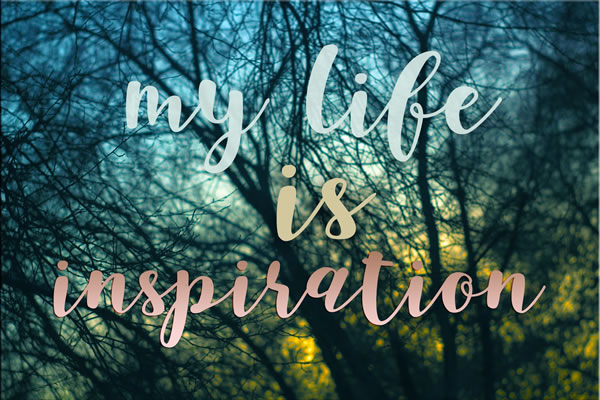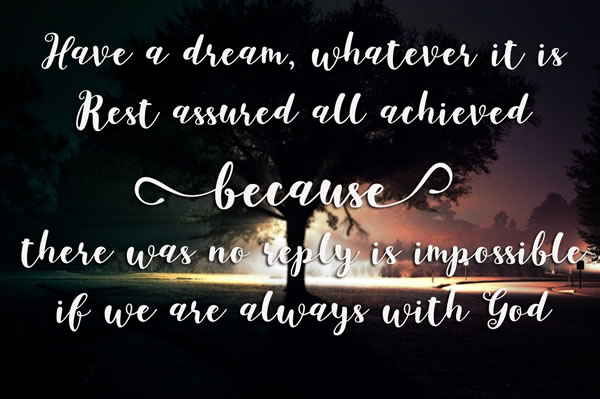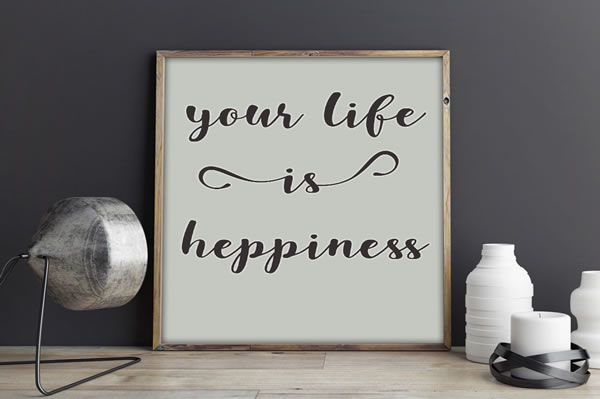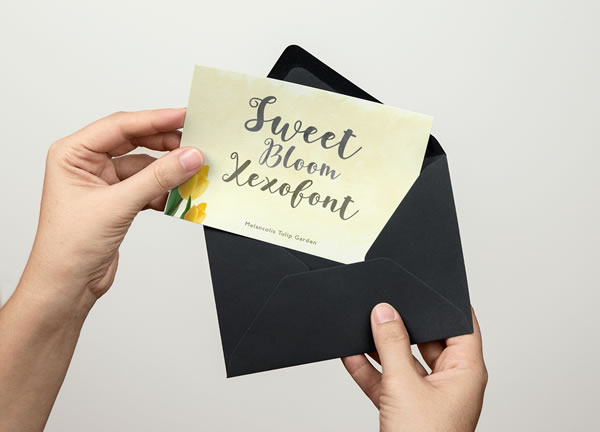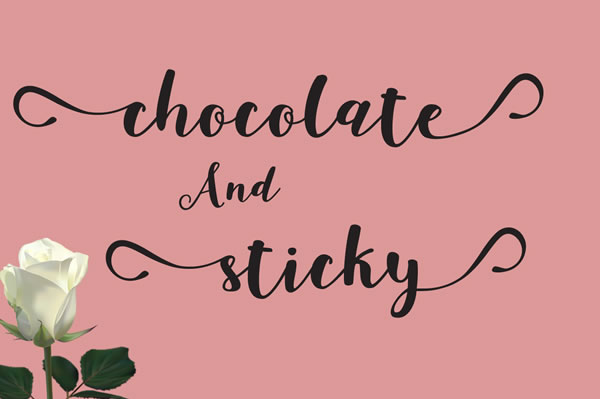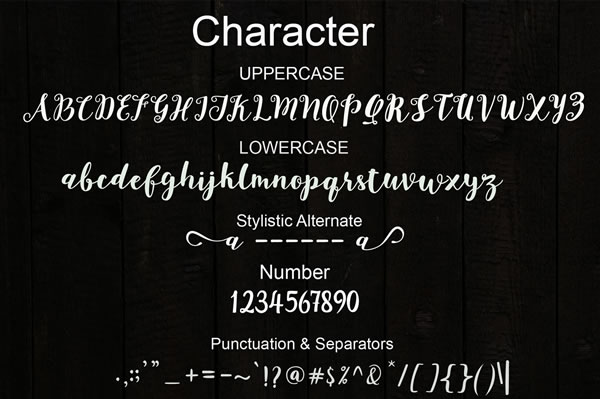
Introduction to Joshan Brush Font
As a designer, there’s nothing quite like the thrill of discovering a new, high-quality design resource that sparks creativity and inspires new ideas. It’s a moment that can transform a project, elevating it from mere functionality to a beautiful work of art. For me, that moment came when I stumbled upon the Joshan Brush Font.
With its delicate, hand-painted script and transparent background, the Joshan Brush Font is a true masterpiece. Inspired by the intricate calligraphy of old manuscripts, this beautiful font is a treasure trove of creative possibilities. Whether you’re working on a design project that requires a touch of elegance or a free download that will add some personality to your digital creations, the Joshan Brush Font is a valuable addition to any designer’s toolkit.
From its subtle texture to its beautiful, flowing lines, the Joshan Brush Font is a design lover’s dream come true. In this article, we’ll delve into the world of this stunning font, exploring its features, benefits, and how it can elevate your next creative project.
Key Features of Joshan Brush Font
- High-quality design with intricate details and smooth lines, perfect for creative projects.
- Includes a range of glyphs and characters, making it a versatile font for various design applications.
- Unique brush-style design adds a touch of elegance and sophistication to any creative project.
Honest Review: Joshan Brush Font
As a designer, I’m always on the lookout for high-quality design resources to elevate my creative projects. The Joshan Brush Font is a great addition to any design library. I was pleasantly surprised by the level of detail and the unique brush-style strokes that give this font its character.
- ✨ High-quality design with a focus on details and texture
- ✨ Unique brush-style strokes that add a creative touch to any project
- ✨ Suitable for a variety of design projects, from editorial to branding
- ⚠️ Limited character set, which may not be suitable for complex texts
- ⚠️ Transparent background may not work well with certain design elements
Overall, the Joshan Brush Font is a great design resource that can add a unique touch to any creative project. While it has some limitations, its high-quality design and free download make it a valuable addition to any designer’s library.
Use the Joshan Brush Font in combination with other design elements to create a unique and eye-catching design. Experiment with different font sizes and colors to add emphasis and visual interest to your design.
The Joshan Brush Font is perfect for a variety of creative projects, including logos, branding materials, and marketing materials. Its high-quality design and transparent background make it a valuable resource for designers and non-designers alike.